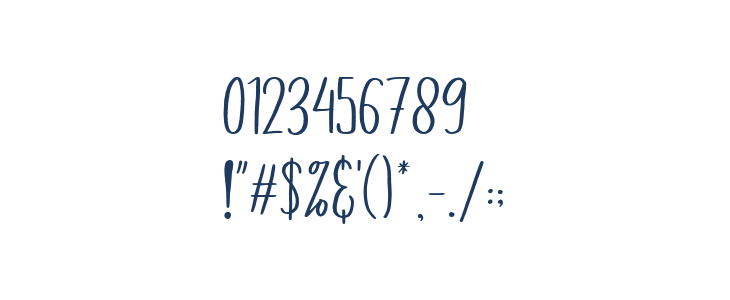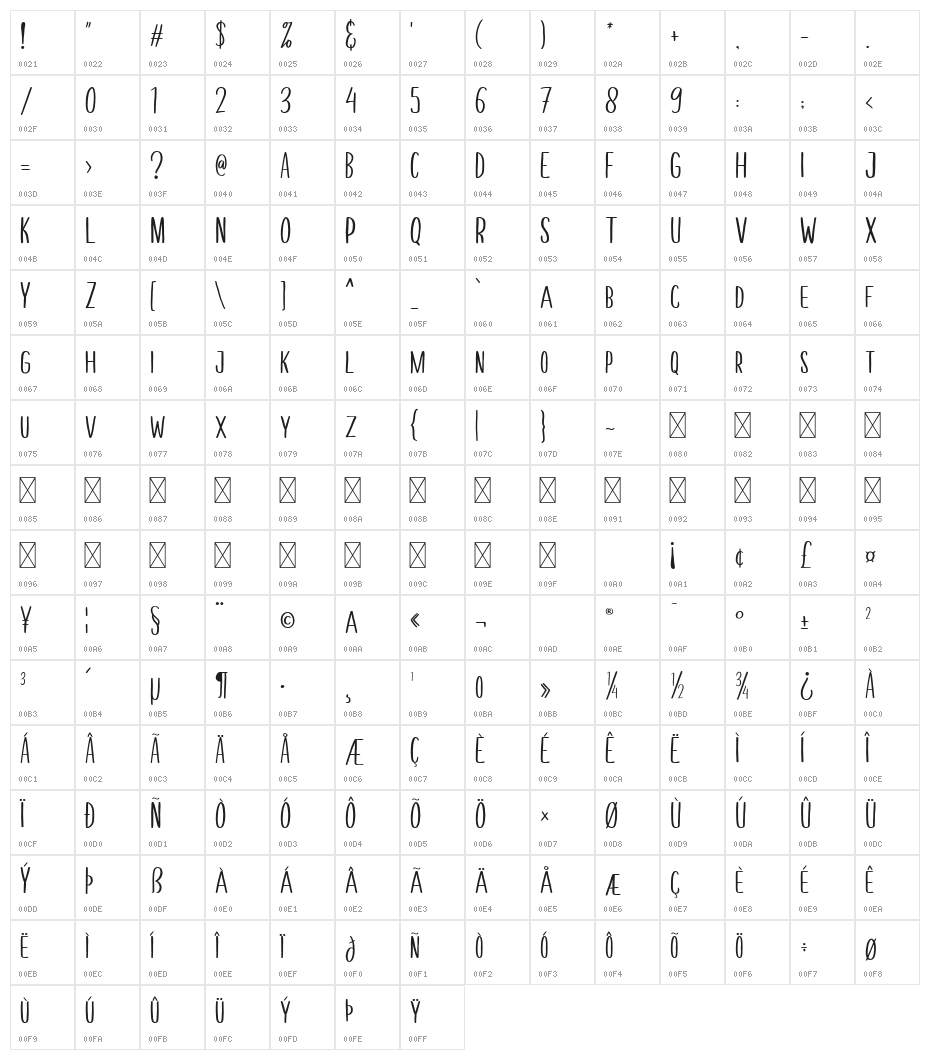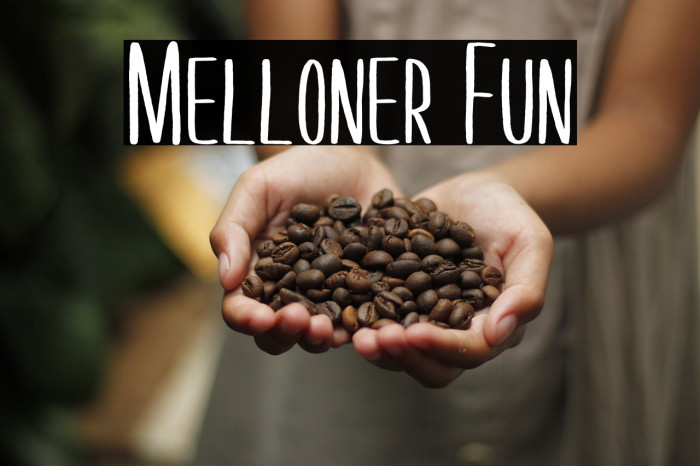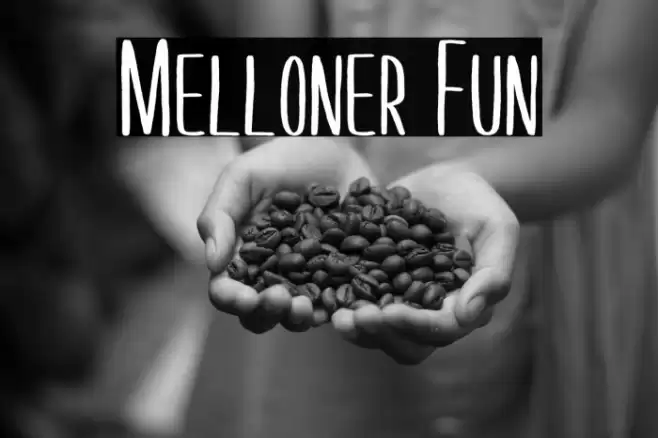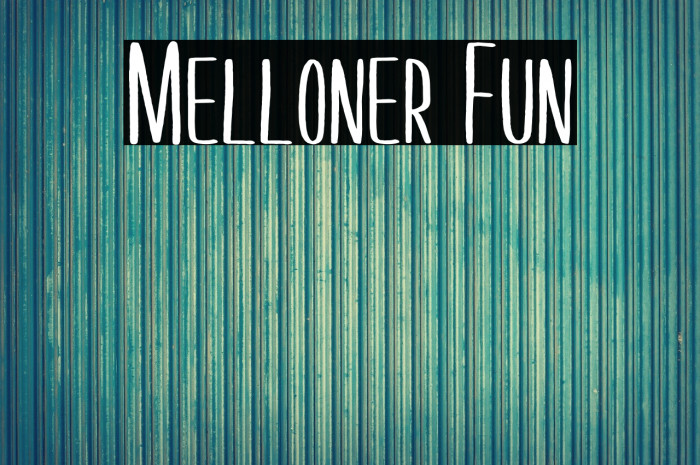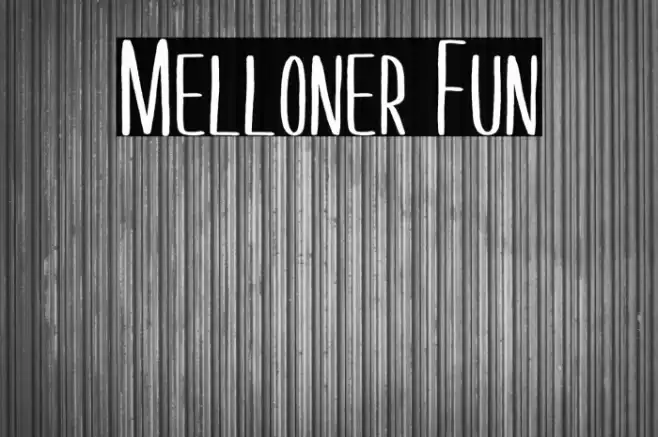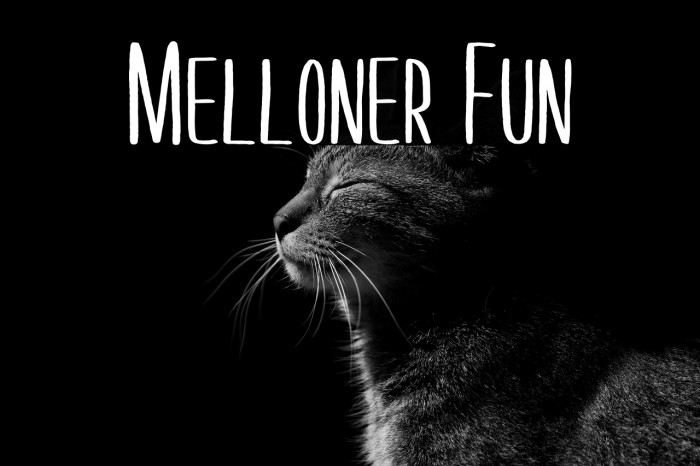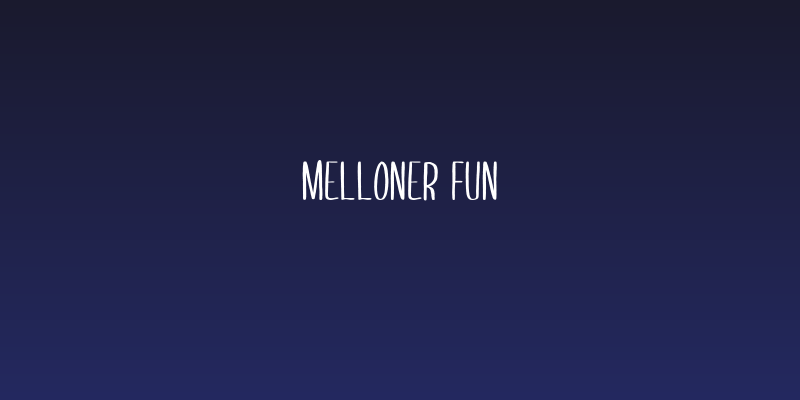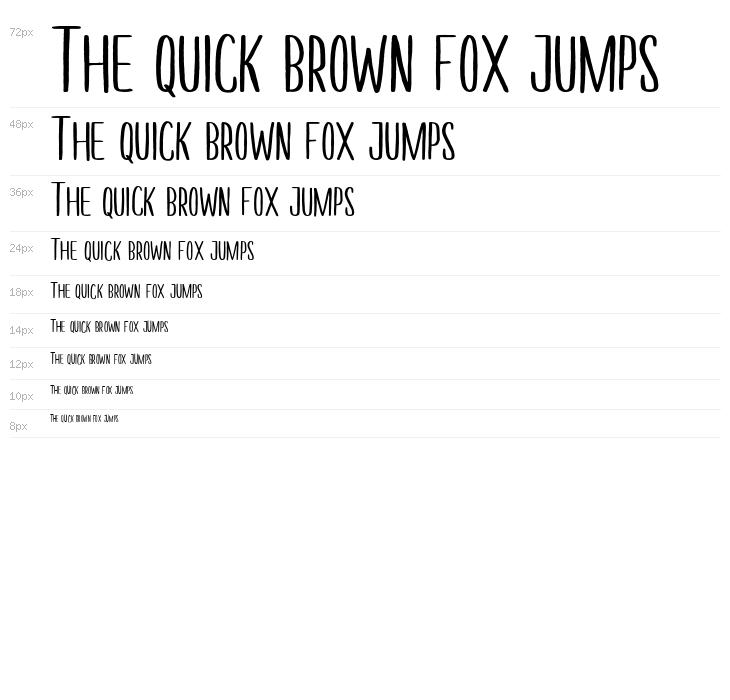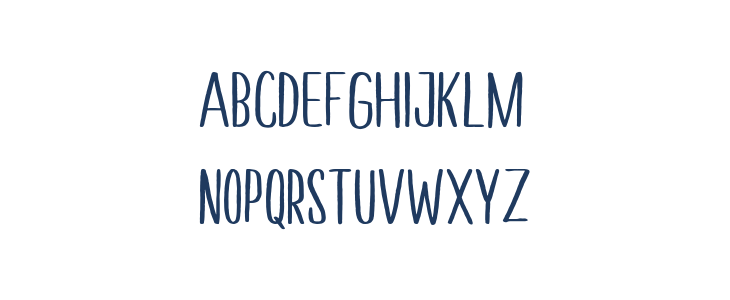
Melloner Fun Font
Melloner Fun Description
This font features a playful and dynamic handwritten style, characterized by its slightly irregular strokes and casual appearance. The uppercase and lowercase letters maintain a consistent flow, with rounded edges that add a friendly and approachable feel. The numerals and special characters are designed to match the overall aesthetic, ensuring a cohesive look across all elements. This font's unique charm makes it suitable for projects that require a personal touch or a sense of whimsy.
| Proposed Projects | Ideal for greeting cards, children's books, playful branding, and social media graphics. |